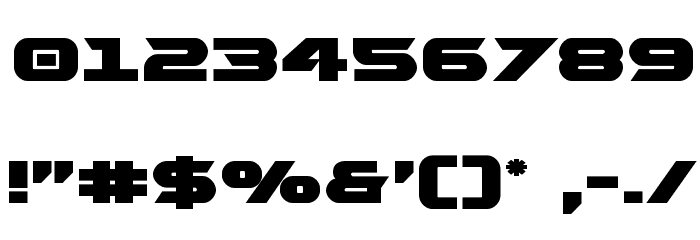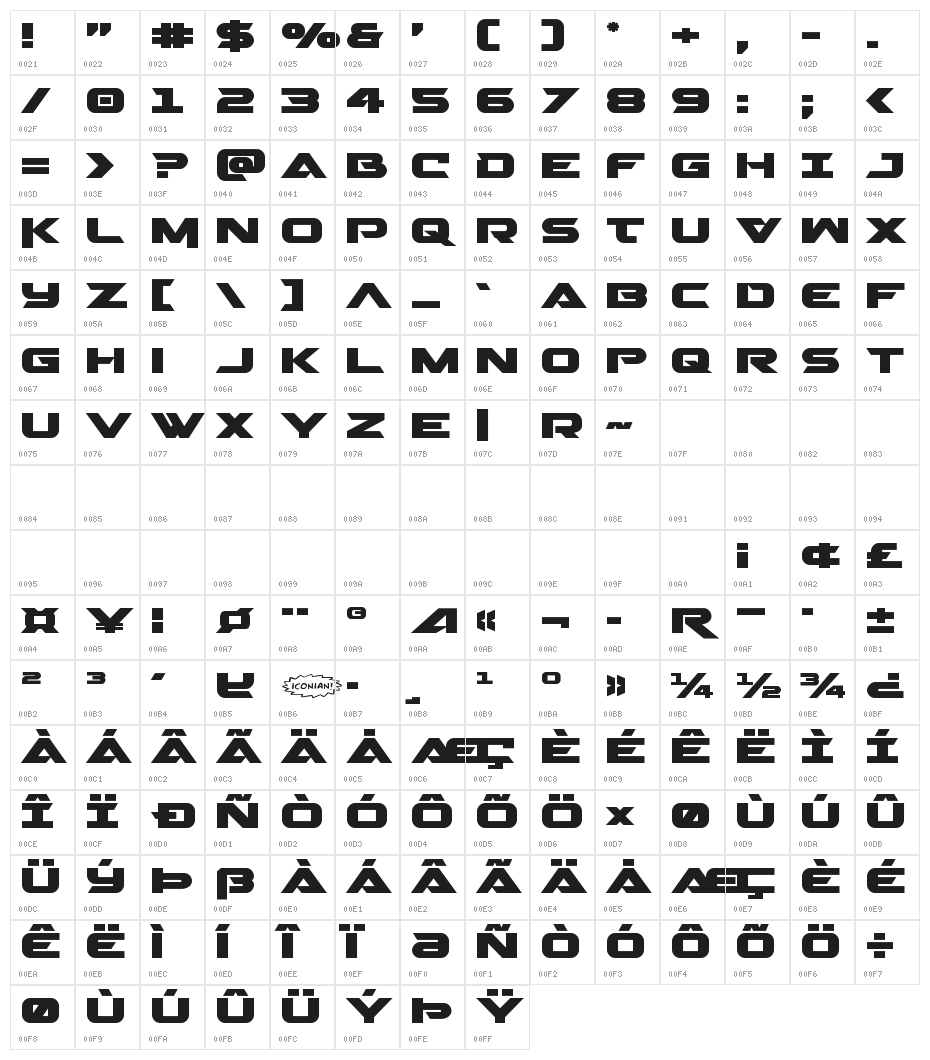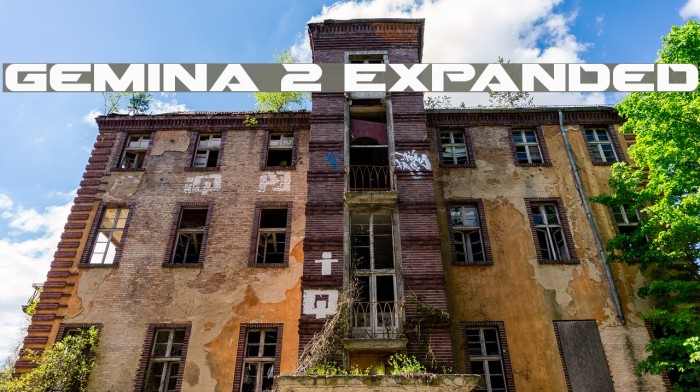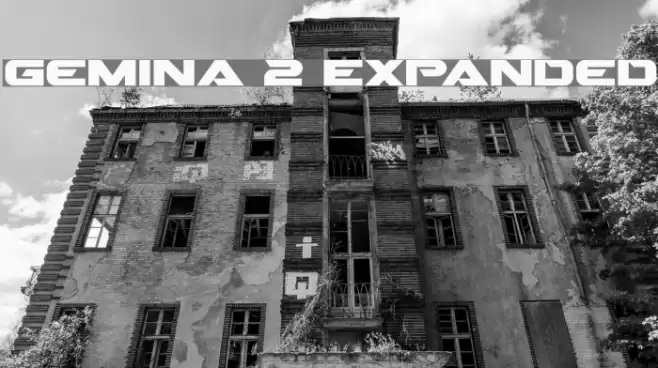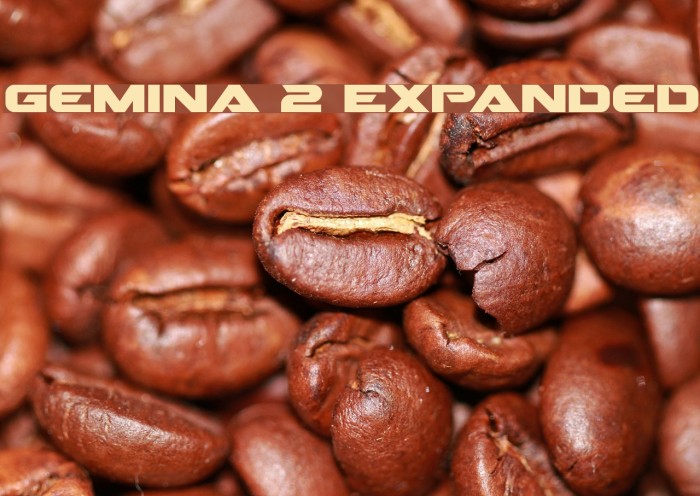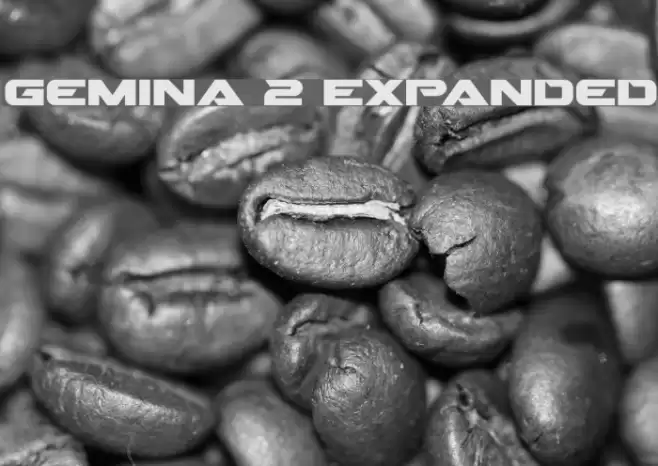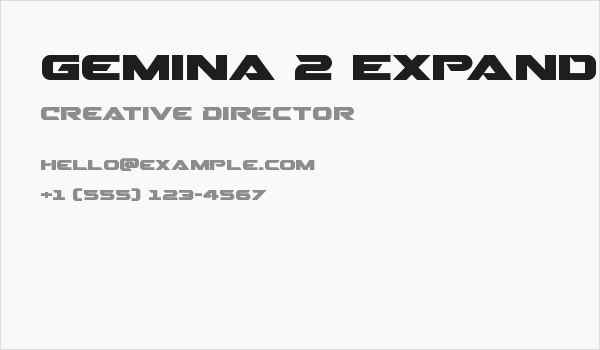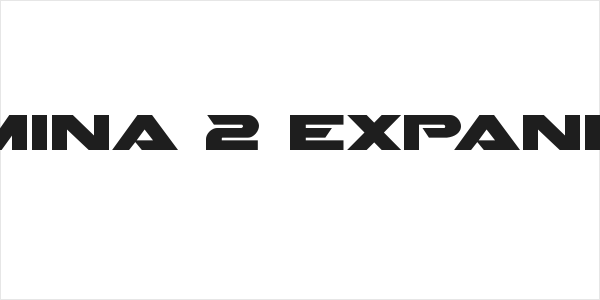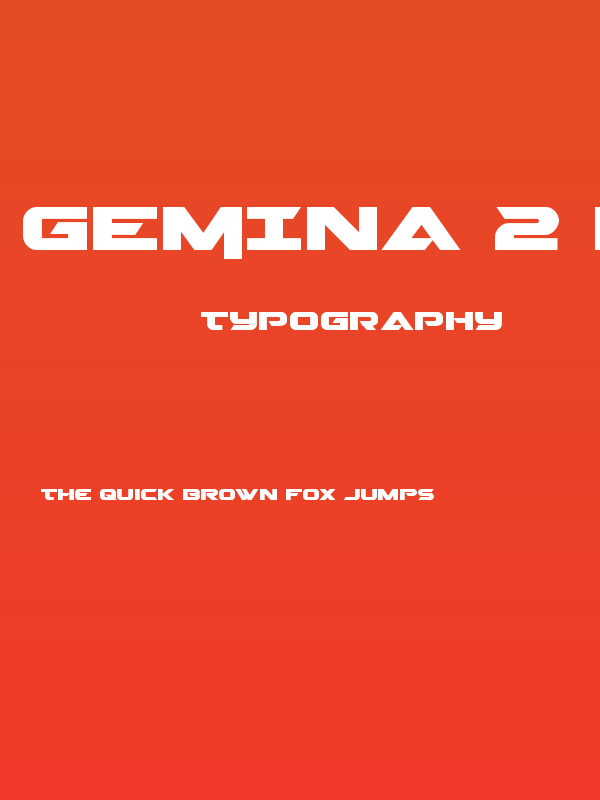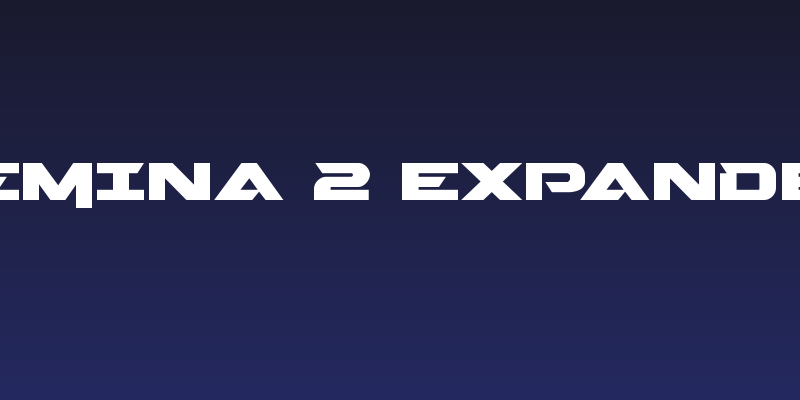
Gemina 2 Expanded Font
Gemina 2 Expanded Description
This font features a bold and geometric design with a futuristic appeal. The characters are constructed with sharp angles and clean lines, giving it a strong and assertive presence. The uppercase letters are particularly striking, with a consistent height and width that enhances readability. The numerals and special characters maintain the same bold style, ensuring uniformity across all text. The font's expanded width allows for a more dramatic and impactful visual, making it ideal for attention-grabbing headlines or titles. Its modern aesthetic is suitable for projects that require a contemporary and edgy look.